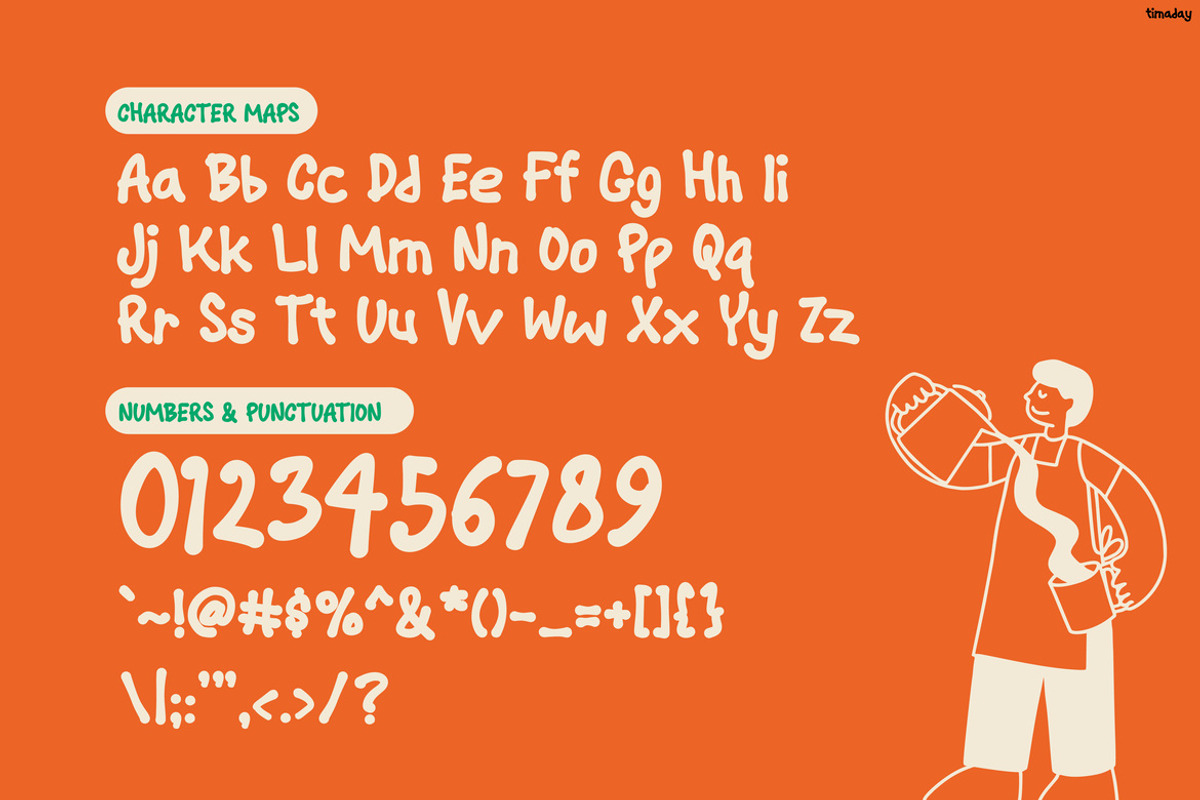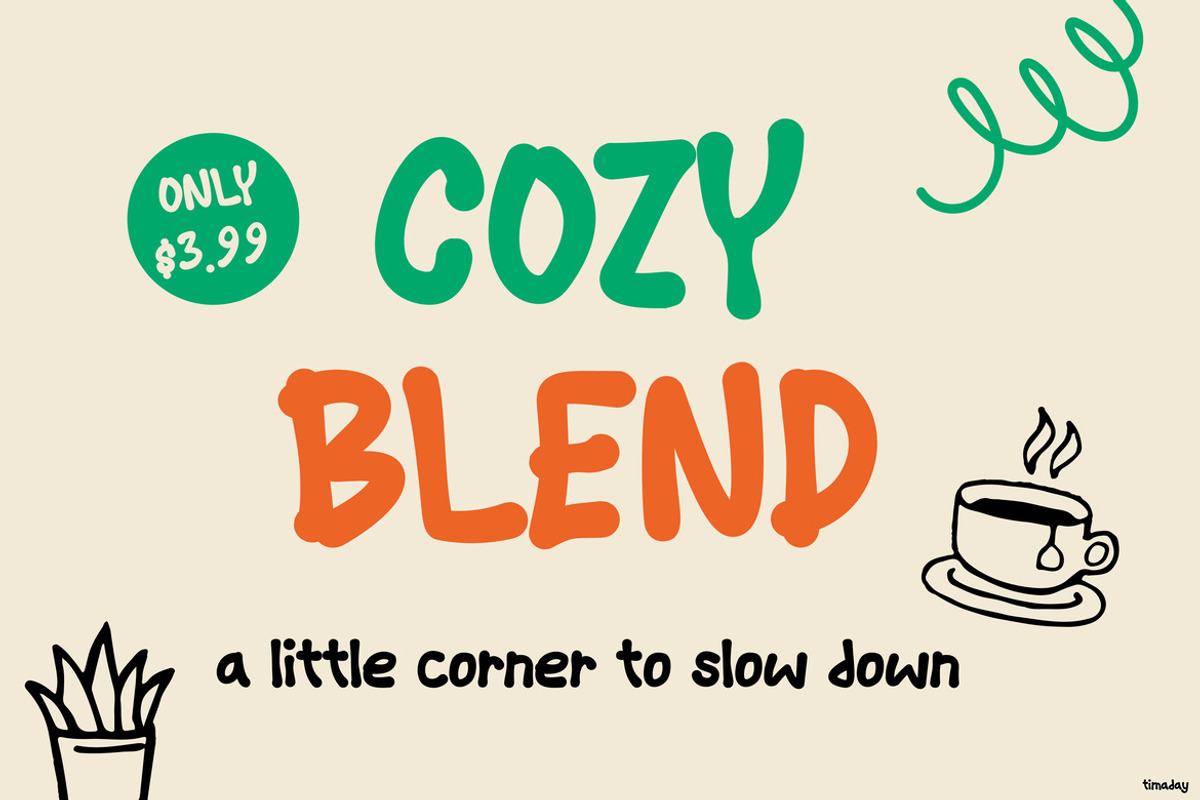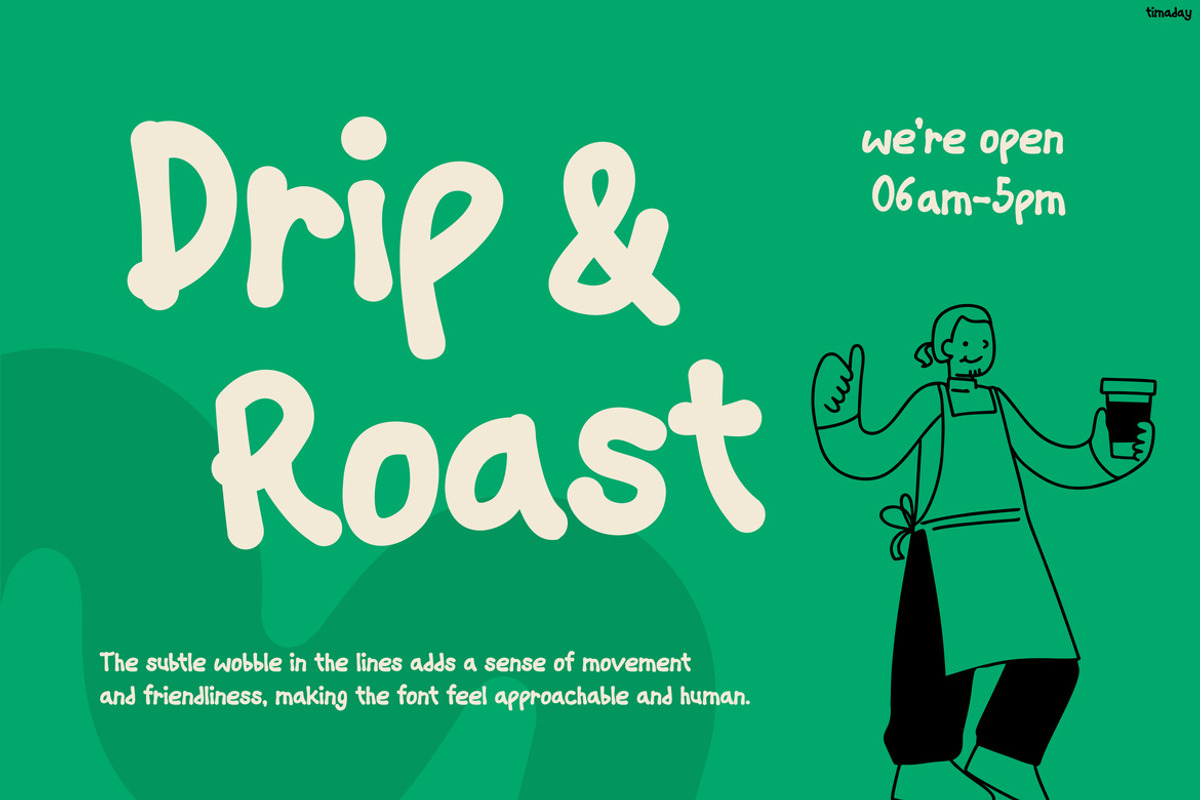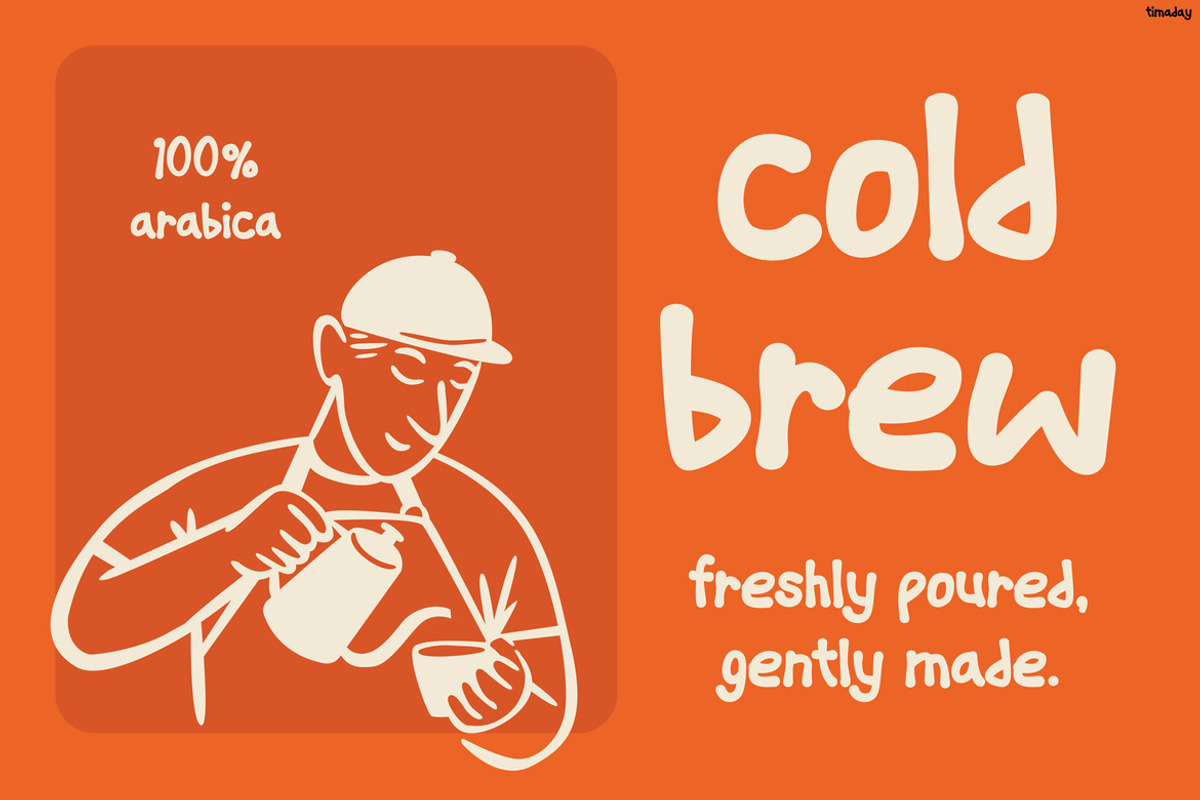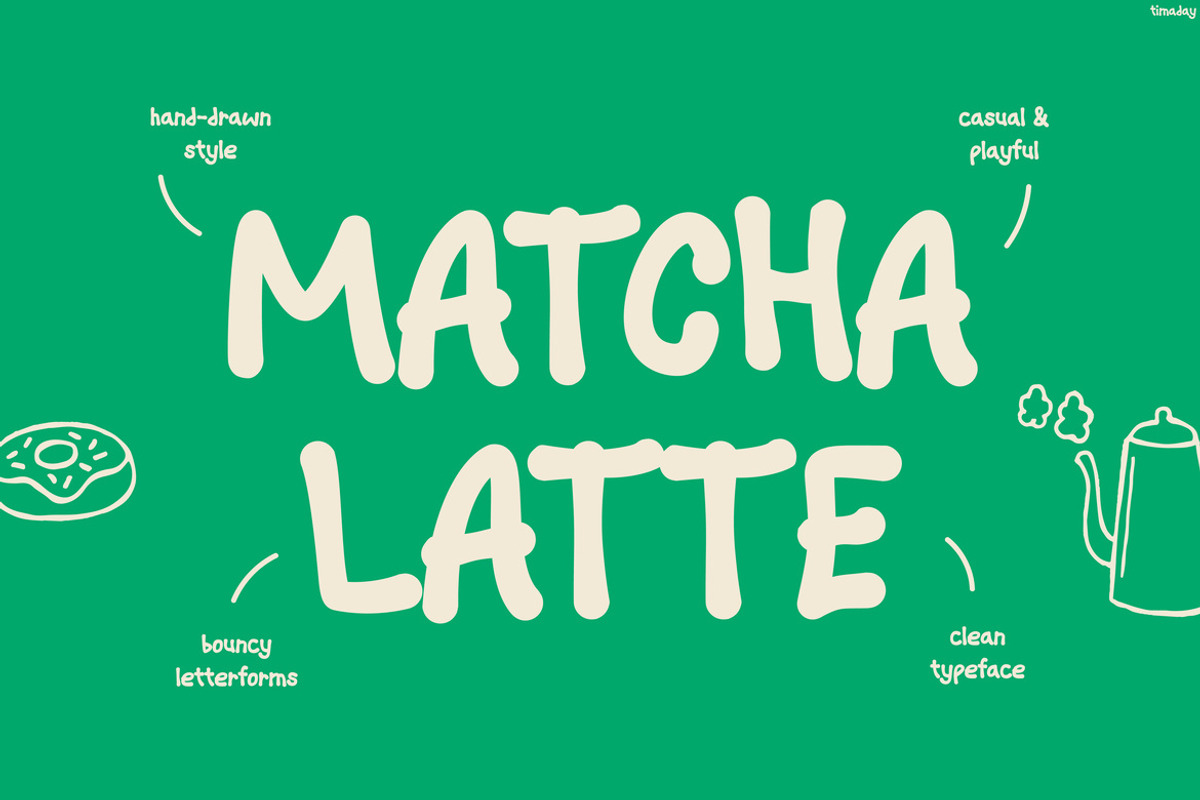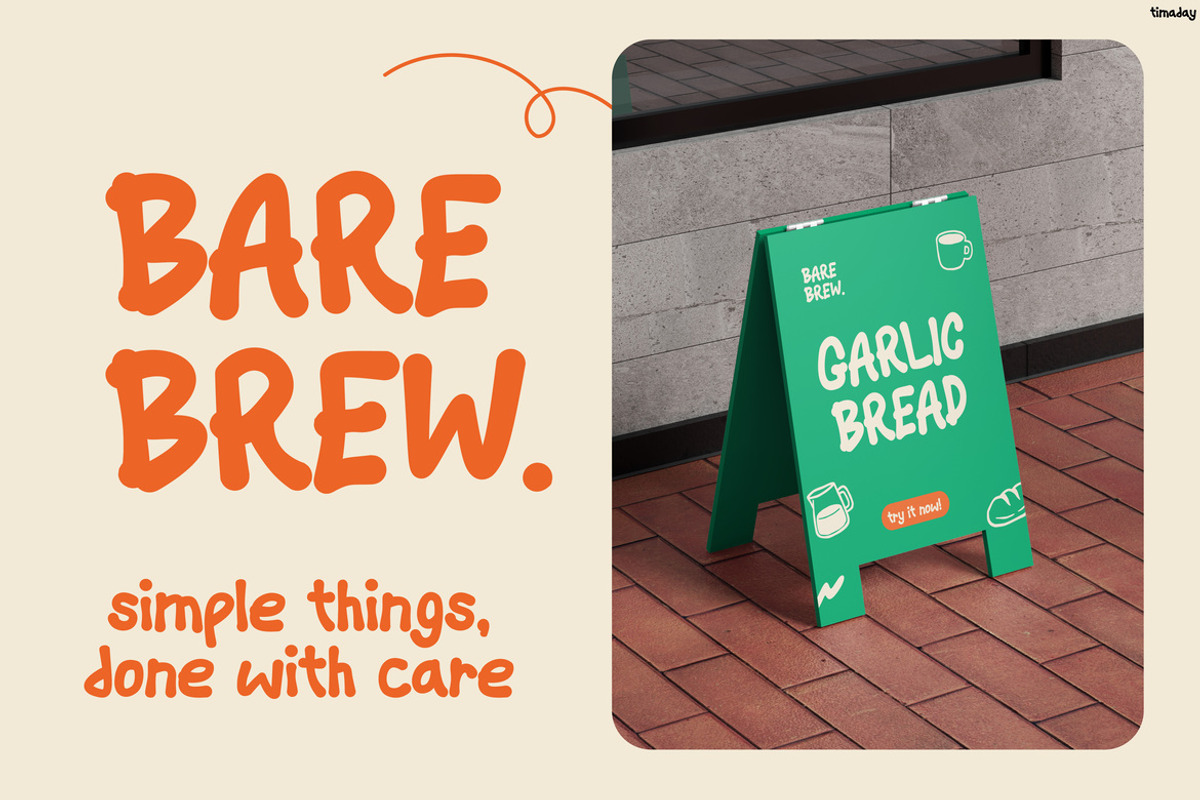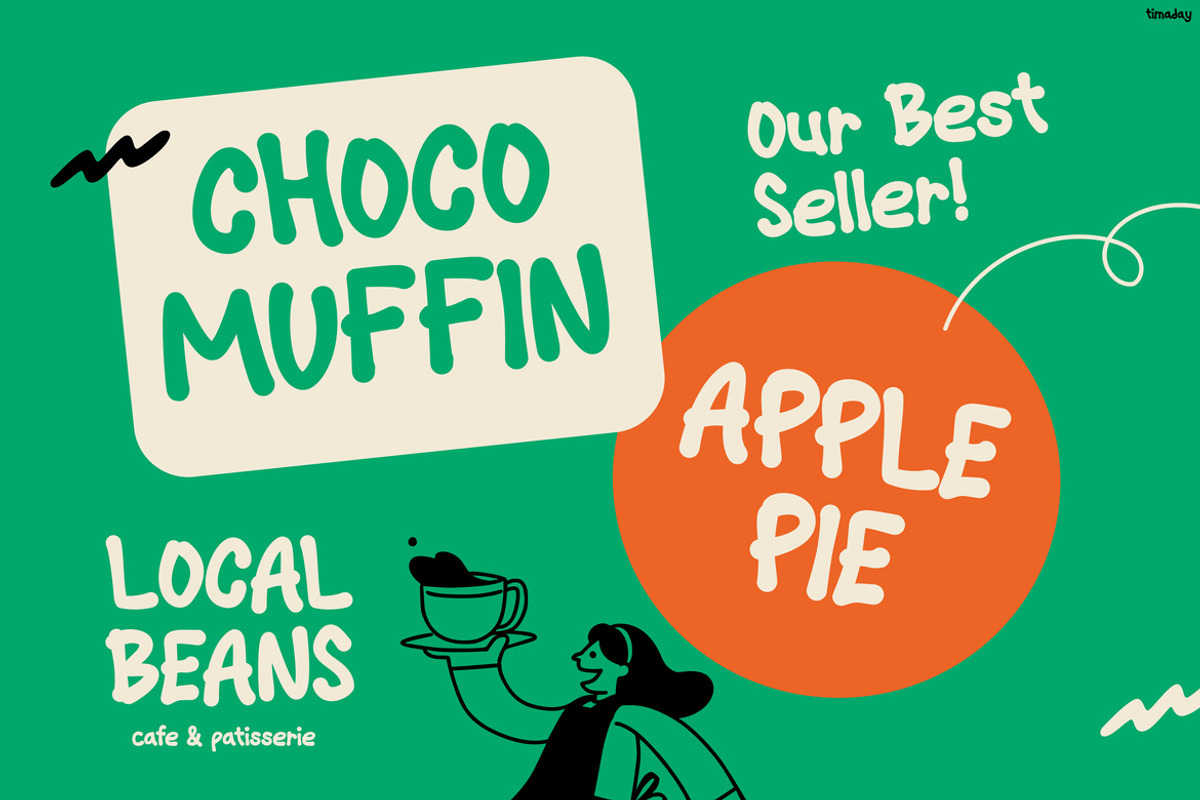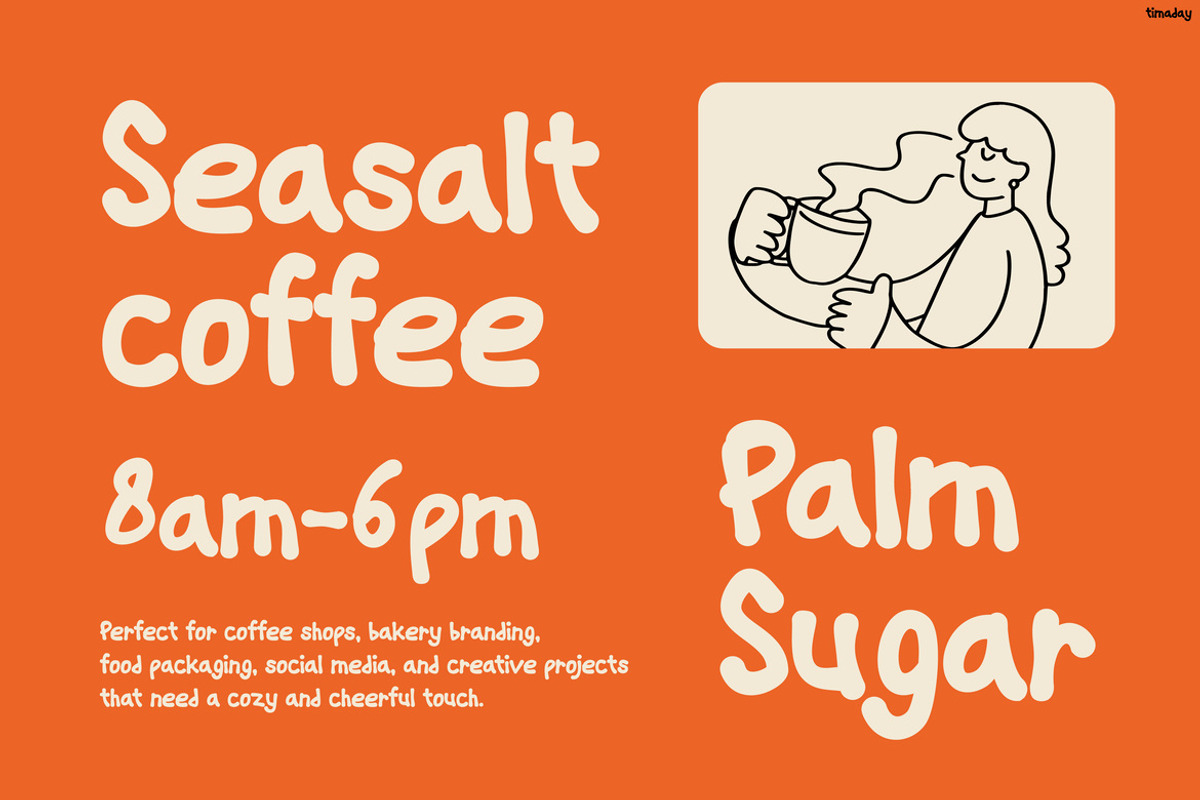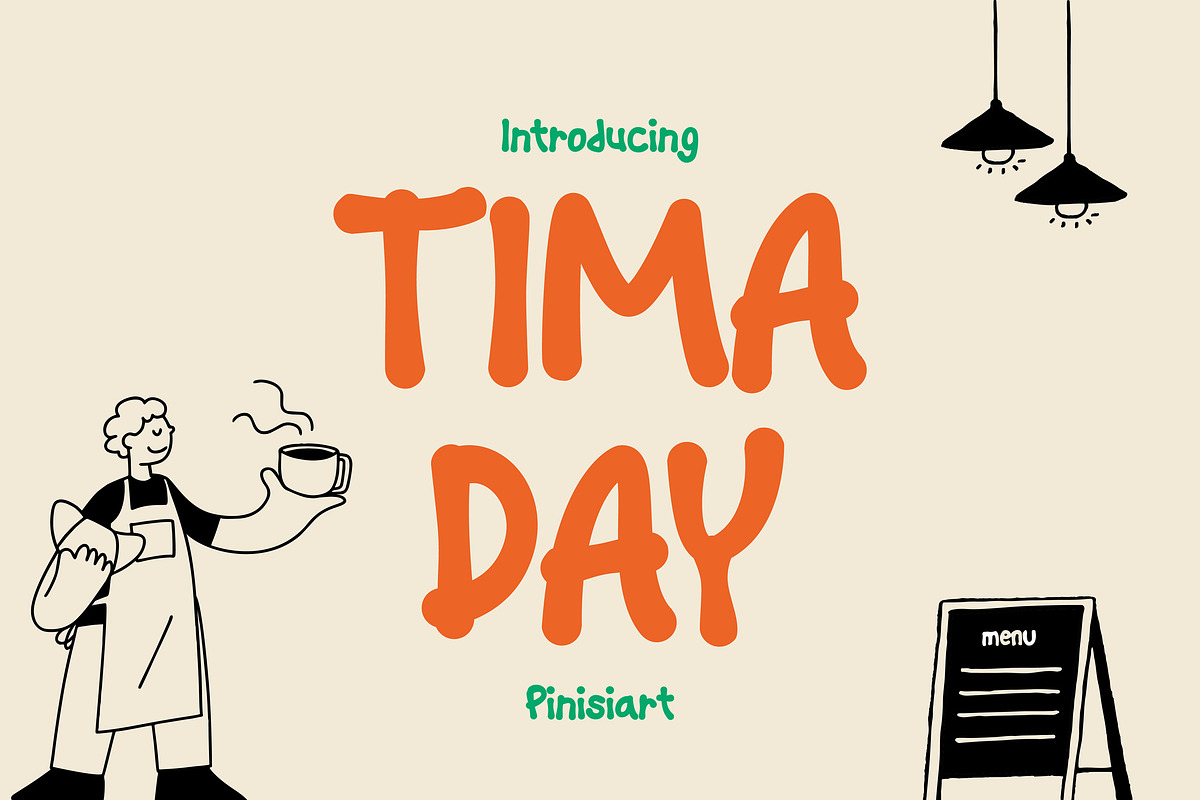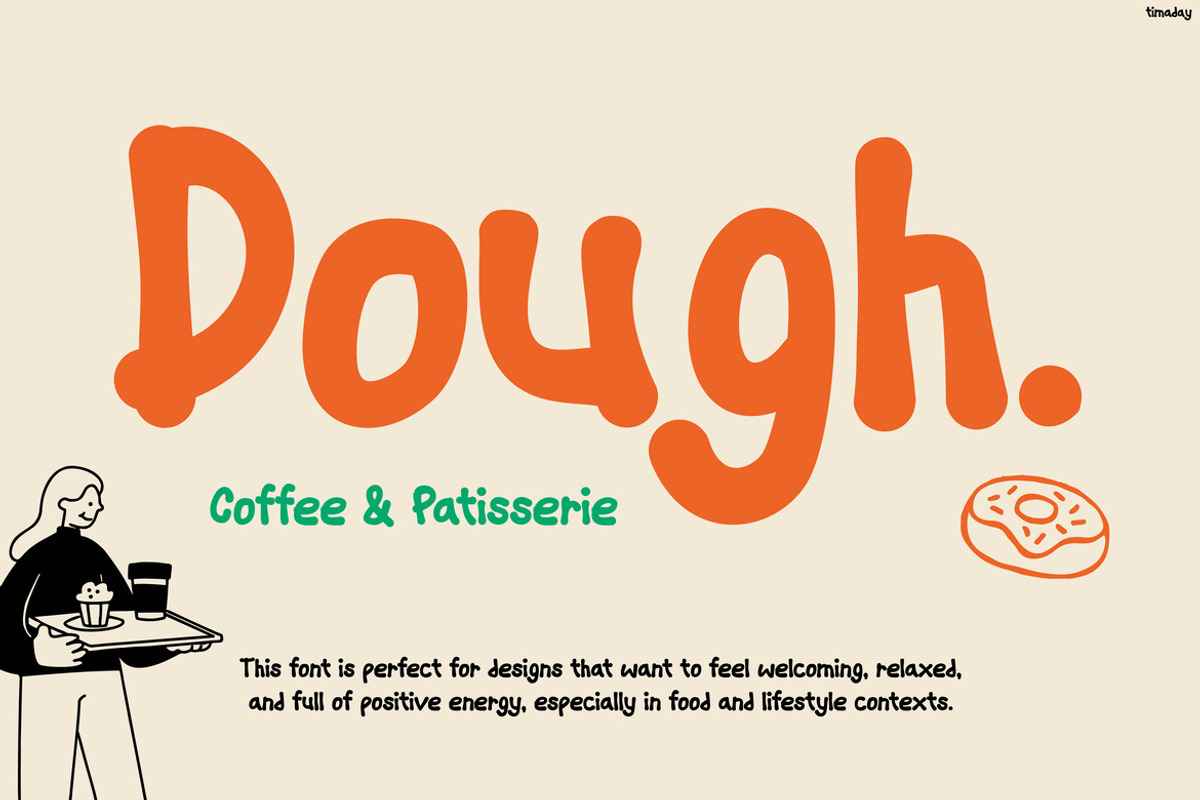
Timaday
Timaday – Playful Coffee Vibes Font
Kids Font Timaday brings a cheerful, hand-drawn energy that instantly feels warm, fun, and full of personality. Moreover, its soft, rounded strokes and slightly imperfect shapes create an authentic handwritten aesthetic that stands out effortlessly. In addition, the font feels lively yet readable, so it works perfectly for eye-catching headlines while still remaining friendly for daily use. Furthermore, inspired by cozy café menus and playful branding, Timaday balances charm and clarity. As a result, it gives your designs a unique, approachable voice that feels both modern and delightfully casual.
Timaday is a versatile kids-style display font designed to add warmth and creativity to any project. For example, it works beautifully on coffee shop menus, product packaging, posters, and social media graphics. Likewise, it adapts smoothly to branding and merchandise designs. Not only does its bold yet soft appearance help your message stand out, but it also keeps the overall look inviting. In the same way, the playful curves ensure a relaxed and friendly tone across all visuals.